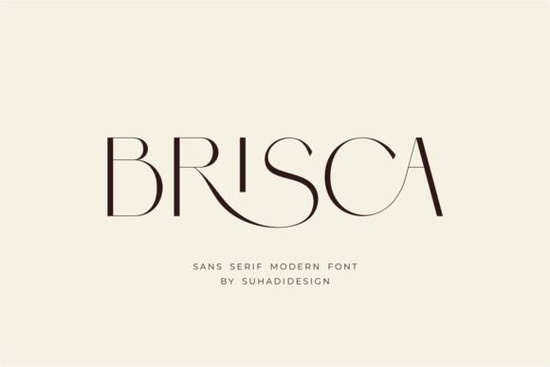
If you're looking for a typeface that balances modern simplicity with a touch of elegance, the Brisca Font is worth a close look. This sans serif font is designed for projects where clean lines and a refined appearance matter think cosmetics packaging, brand logos, or even magazine layouts. Its built‑in ligatures add a subtle flow that makes text feel more polished, without sacrificing readability. Whether you’re a print‑on‑demand seller designing apparel or a small business creating a cohesive brand identity, Brisca Font can help you achieve a professional, classy result.
What makes Brisca Font a good choice for branding?
Branding often relies on type that feels both trustworthy and distinctive. Brisca Font delivers that by combining a modern geometric shape with slightly softened edges. It doesn’t scream for attention it quietly establishes authority. The ligature feature helps connect letters naturally, which is especially useful for creating a custom logo or wordmark. For beauty or cosmetic brands, this clean sans serif pairs well with minimalist packaging and social media visuals. If you’re experimenting with different styles, you might also check out the Mansory font another sans serif option with a different personality.
How can you use Brisca Font in everyday projects?
Because Brisca Font is clean and legible, it works in both print and digital formats. Here are some practical ways to incorporate it:
- Business cards and stationery – Keep your contact info readable while still looking premium.
- Social media graphics – Use it for quotes, announcements, or product highlights.
- E‑book interiors and book covers – Its even letter spacing reduces eye strain during long reads.
- Product labels – Especially for skincare, candles, or food packaging where clarity counts.
- Presentation decks – Headlines set in Brisca Font feel contemporary without being gimmicky.
Is Brisca Font suitable for print‑on‑demand (POD) products?
Absolutely. POD platforms like Printful or Redbubble require fonts that are clear at small sizes (think t‑shirt text) and elegant when enlarged (like tote bags or mugs). Brisca Font covers both. Its neutral mood works on everything from minimalist apparel to home decor. The ligatures add a handmade touch to short phrases, which customers often perceive as higher quality. If you sell on marketplaces like Etsy, using a consistent, attractive font can help your products look more cohesive across your shop.
How does Brisca Font compare to other modern sans serifs?
Many modern sans serifs lean very minimal almost cold. Brisca Font keeps that clean structure but introduces a slight warmth through its letter shapes and ligatures. It sits comfortably between a strict geometric font and a humanist one. For designers who need versatility, it’s a reliable workhorse. Another font in this space worth exploring is the Modern Heritage font, which has a bit more contrast and a vintage edge.
Where does Brisca Font fit in your creative workflow?
Whether you’re a graphic designer, a small business owner, or a hobbyist crafter, having a go‑to sans serif saves time. Brisca Font works well for:
- Logo design – Simple enough to not fight with icons, but distinctive enough to be remembered.
- Magazine or brochure layouts – Use it for body text in a clean two‑column grid.
- Brand guidelines – A reliable secondary font for headlines or subheadings.
- Invitations and stationery – Especially for weddings, birthdays, or corporate events that call for an understated look.
Quick tips for getting the most out of Brisca Font
- Pair it with a serif font for contrast: use Brisca for headings and a classic serif for body copy.
- Use it consistently across all brand touchpoints one font can unify your entire visual identity.